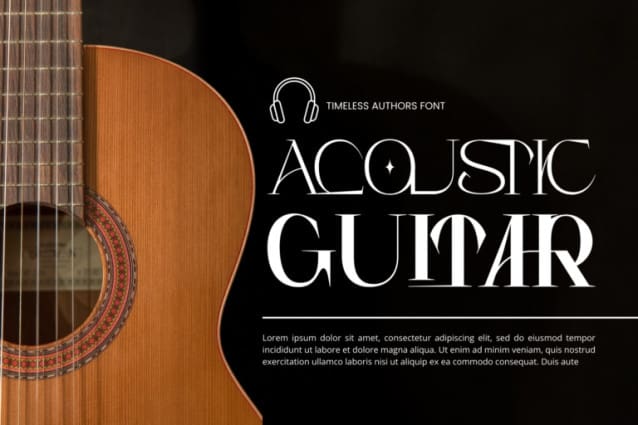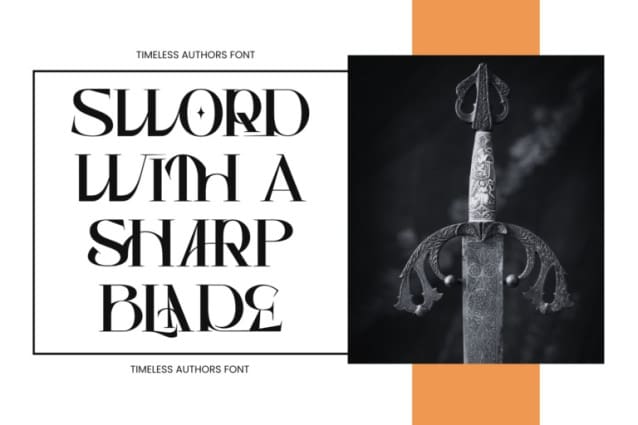
Timeless Authors Font
Timeless Authors Font is a refined serif typeface that epitomizes elegance and sophistication. It beautifully merges a classic design with a modern aesthetic, characterized by pointed terminals and elongated serifs, which lend it a high-fashion appeal with a elegant touch. It’s a smooth serif font that exudes sophistication and the moment. Its stylish alterations and ligatures make this font a perfect partner for any project.
Timeless Authors was built with OpenType features and includes 100 ligatures, alternate, numbers, punctuation, and it also supports other languages.